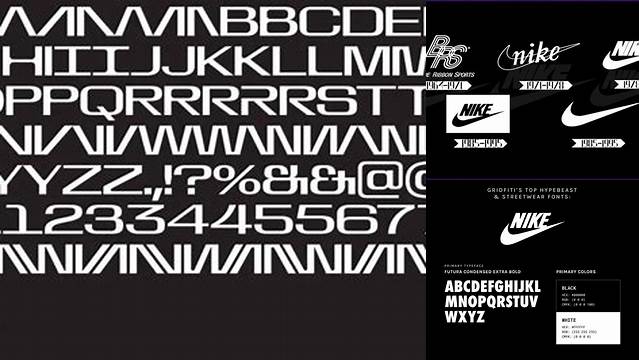
Nike Fonts: Decoding The Typography Behind The Swoosh
Nike, a global leader in sportswear and athletic apparel, has cultivated a powerful brand identity that extends beyond its iconic Swoosh logo. A crucial element of this identity lies in its consistent and strategic use of typography. The fonts Nike employs across its marketing materials, product designs, and digital platforms play a vital role in communicating its brand message of athleticism, innovation, and empowerment. In this comprehensive guide, we'll dive deep into the world of Nike fonts, exploring their history, characteristics, and impact on the brand's overall image. Understanding Nike's font choices provides valuable insights for designers, marketers, and anyone interested in the art of visual communication.
A Deep Dive into Nike's Primary Font: Futura
When you think of Nike, what font springs to mind? Chances are, it's Futura. This geometric sans-serif typeface has become synonymous with the brand's clean, modern aesthetic. Designed by Paul Renner in 1927, Futura embodies the principles of the Bauhaus design movement, characterized by its simple geometric shapes and minimalist forms. Its clean lines and balanced proportions convey a sense of efficiency, precision, and forward-thinking, qualities that resonate perfectly with Nike's brand values. Futura's versatility makes it a perfect choice for a wide range of applications, from bold headlines and product names to body text and website content. Nike's consistent use of Futura over the years has solidified its association with the brand, making it instantly recognizable to consumers worldwide. The font's timeless appeal ensures that Nike's branding remains fresh and modern, even as trends evolve. Nike leverages Futura in various weights and styles, adapting the typeface to suit different contexts while maintaining a cohesive brand identity. This strategic use of typography helps Nike communicate its message with clarity and impact, reinforcing its position as a leader in the athletic apparel industry. The power of Futura lies in its ability to convey a sense of both strength and elegance, reflecting Nike's commitment to both performance and style. It is worth noting that while Futura is the most prominent typeface associated with Nike, the brand occasionally uses other fonts to complement or contrast with Futura, depending on the specific campaign or product line.
Secondary Fonts and Their Role in Nike's Branding
While Futura reigns supreme as Nike's primary font, the brand also utilizes secondary typefaces to add visual interest and create a more dynamic brand identity. These fonts often serve specific purposes, such as highlighting special features, emphasizing key messages, or differentiating product lines. One such secondary font is Helvetica, another classic sans-serif typeface known for its neutrality and legibility. Helvetica provides a clean and unobtrusive counterpoint to Futura, allowing Nike to maintain a consistent brand aesthetic while adding subtle variations. Its versatility makes it well-suited for a wide range of applications, including body text, captions, and smaller design elements. Another font that has appeared in Nike's branding is Trade Gothic, a robust sans-serif with a slightly more industrial feel. Trade Gothic's strong, confident letterforms convey a sense of power and athleticism, making it an appropriate choice for campaigns focused on performance and innovation. Nike's strategic use of secondary fonts demonstrates a sophisticated understanding of typography and its impact on brand perception. By carefully selecting typefaces that complement Futura, Nike creates a visual hierarchy that guides the viewer's eye and reinforces key messages. The interplay between primary and secondary fonts adds depth and complexity to Nike's branding, ensuring that it remains engaging and memorable. Nike's font choices are not arbitrary; they are carefully considered decisions that contribute to the brand's overall identity and message. The strategic use of secondary fonts allows Nike to communicate its values and personality in a nuanced and effective way.
The Psychology of Type: How Nike's Fonts Communicate Brand Values
Nike's font choices are not merely aesthetic decisions; they are strategic tools that communicate the brand's core values and personality. The psychology of type plays a significant role in how consumers perceive a brand, and Nike has masterfully leveraged this principle in its typography. Futura, with its clean geometric forms, conveys a sense of modernity, efficiency, and innovation. These qualities align perfectly with Nike's focus on cutting-edge technology and performance-enhancing athletic wear. The font's minimalist design speaks to a sense of clarity and purpose, reflecting Nike's commitment to helping athletes achieve their goals. The choice of sans-serif typefaces, in general, reflects a contemporary and forward-thinking approach. Sans-serif fonts are often associated with a sense of simplicity, directness, and accessibility, making them well-suited for a brand that aims to connect with a broad audience. Nike's use of bold weights and impactful typography in its advertising campaigns reinforces a sense of strength, confidence, and determination. The visual impact of large, bold typefaces captures attention and conveys a powerful message of athleticism and achievement. The careful selection of font pairings also contributes to Nike's brand identity. The contrast between Futura and secondary fonts like Helvetica or Trade Gothic creates a dynamic visual experience that adds depth and complexity to the brand's messaging. The interplay between different typefaces allows Nike to communicate its values in a nuanced and engaging way. By understanding the psychology of type, Nike has created a visual language that resonates with its target audience and reinforces its position as a leading athletic brand. The fonts Nike employs are not just letters on a page; they are powerful symbols that communicate the brand's essence.
Nike Font in Marketing Campaigns: A Visual Language
In Nike's marketing campaigns, typography isn't just an afterthought; it's a crucial element of the brand's visual language. The fonts chosen, primarily Futura, play a significant role in conveying the message and reinforcing the brand's identity. Whether it's a print advertisement, a digital banner, or a social media post, Nike's typography is carefully considered to align with the overall campaign aesthetic and messaging. Nike often uses bold, impactful typography in its campaigns to capture attention and create a sense of urgency. Large, striking headlines in Futura grab the viewer's eye and communicate key messages with clarity and power. The strategic use of whitespace around the typography further enhances its impact, creating a clean and uncluttered visual experience. The font choices also contribute to the emotional tone of Nike's campaigns. For example, a campaign focused on peak performance might utilize a bolder weight of Futura to convey strength and determination, while a campaign highlighting style and innovation might opt for a lighter weight to create a more sophisticated feel. Nike's typography is also adapted to suit different platforms and mediums. The brand understands that fonts need to be legible and impactful across a range of devices, from large billboards to small smartphone screens. This attention to detail ensures that Nike's message is consistently communicated, regardless of the viewing context. The use of typography in Nike's marketing campaigns extends beyond headlines and body text. The brand often incorporates typography into its product designs, adding a visual element to shoes, apparel, and accessories. This integration of typography into the product itself further reinforces Nike's brand identity and creates a cohesive brand experience. Overall, Nike's strategic use of typography in its marketing campaigns demonstrates a deep understanding of visual communication. The brand recognizes the power of fonts to convey emotion, reinforce messaging, and create a lasting impression on consumers.
Where to Find and Use Fonts Similar to Nike's
If you admire Nike's font choices and want to incorporate a similar aesthetic into your own projects, you're in luck. While Futura is a commercially licensed font, there are several excellent alternatives that capture its clean, geometric style. Exploring these options allows you to achieve a similar look and feel without directly using the Nike font. One popular alternative is Gotham, a widely used sans-serif typeface known for its modern and versatile design. Gotham shares many of the characteristics of Futura, including its geometric forms and clean lines. It's a great choice for headlines, body text, and a variety of other applications. Another excellent option is Avenir, a humanist sans-serif font that offers a slightly warmer and more approachable feel than Futura. Avenir's subtle curves and balanced proportions make it a highly legible and versatile typeface. If you're looking for a free alternative, consider Montserrat. This open-source font family boasts a similar geometric structure to Futura and offers a wide range of weights and styles. Montserrat is a great choice for both personal and commercial projects. When using fonts similar to Nike's, it's important to consider the overall tone and message you want to convey. Experiment with different weights, styles, and pairings to find the perfect combination for your project. Remember that typography is a powerful tool for visual communication, so choose your fonts carefully. Online font libraries like Google Fonts, Adobe Fonts, and MyFonts offer a vast selection of typefaces, including many that are similar to Futura. These resources make it easy to browse, preview, and download fonts for your projects. By exploring the world of geometric sans-serif fonts, you can emulate Nike's iconic typography and create designs that are both stylish and impactful.
The Evolution of Nike's Font Usage Over Time
Nike's font usage has evolved over time, reflecting the brand's growth and changing design trends. While Futura has remained a consistent element of its identity, Nike has also experimented with other typefaces and styles to stay fresh and relevant. Looking at the evolution of Nike's font choices provides valuable insights into the brand's visual strategy. In its early years, Nike relied heavily on Futura for all aspects of its branding, from logos and advertising to product packaging. This consistent use of Futura helped to establish a strong and recognizable brand identity. As Nike expanded its product lines and target audience, the brand began to incorporate secondary fonts to add visual interest and differentiate its various sub-brands. This diversification of typography allowed Nike to communicate more nuanced messages and appeal to a wider range of consumers. In recent years, Nike has embraced a more minimalist and streamlined approach to typography, often using clean, simple sans-serif fonts in its marketing campaigns. This reflects a broader trend in design towards simplicity and clarity. Nike's font choices also reflect its commitment to innovation and technology. The brand often uses modern, geometric typefaces that convey a sense of forward-thinking and cutting-edge design. Nike's evolution of font usage demonstrates its ability to adapt to changing trends while maintaining a consistent brand identity. The brand's strategic use of typography has played a crucial role in its success, helping to communicate its values and connect with consumers around the world. By studying Nike's font evolution, designers and marketers can gain valuable insights into the power of typography in building a strong brand identity. Nike's ongoing exploration of typography ensures that its visual language remains fresh, relevant, and impactful.
The Impact of Nike's Fonts on Brand Recognition and Perception
The impact of Nike's font choices on brand recognition and perception cannot be overstated. The consistent use of Futura and other carefully selected typefaces has played a significant role in shaping the brand's identity and creating a strong connection with consumers. When people see Futura in a marketing campaign or on a product, they immediately associate it with Nike, this font has become synonymous with the brand's values of athleticism, innovation, and style. The visual consistency created by Nike's font usage reinforces its brand message and builds trust with consumers. The clean, modern aesthetic of Futura aligns perfectly with Nike's focus on cutting-edge technology and performance-enhancing athletic wear. The font's geometric forms convey a sense of precision and efficiency, qualities that resonate with athletes and fitness enthusiasts. The strategic use of typography also helps Nike to differentiate itself from its competitors. By using a unique and recognizable font palette, Nike creates a visual identity that stands out in a crowded marketplace. The impact of Nike's fonts extends beyond its marketing materials and product designs. The brand's typography is also used consistently on its website, social media channels, and other digital platforms, creating a cohesive brand experience across all touchpoints. This consistent visual identity reinforces Nike's brand message and builds brand loyalty. The power of Nike's fonts lies in their ability to communicate the brand's values and personality in a subtle yet impactful way. The font choices are not just aesthetic decisions; they are strategic tools that contribute to Nike's overall success. By understanding the impact of its fonts on brand recognition and perception, Nike has created a visual language that resonates with its target audience and reinforces its position as a global leader in athletic apparel and footwear. In conclusion, Nike's masterful use of fonts exemplifies the profound impact typography has on brand identity and recognition. Their consistent and strategic application of typefaces, particularly Futura, has solidified the brand's image of athleticism, innovation, and empowerment in the minds of consumers worldwide.